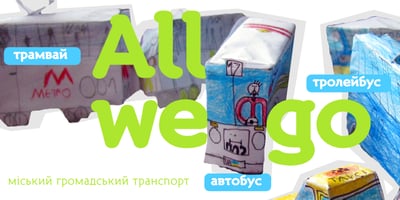
Turbota
Turbota font
Turbota Font Family was designed by Andrij Shevchenko and published by AndrijType. Turbota contains 5 styles and family package options. This typeface was developed as a part of identity system for Turbota, center of social rehabilitation for disabled children in Ukraine. With soft ends, traditional structure and asymmetric serifs it works well in both playful and official contexts.